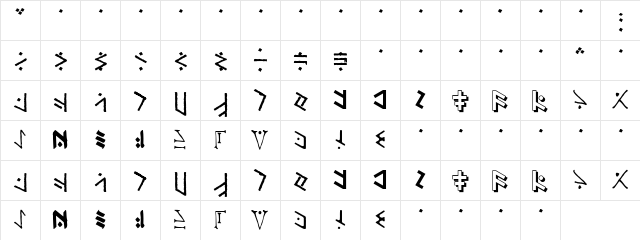
Temphis Sampler Regular Free Font
Temphis Sampler Regular
Designer: S. John Ross
Design Context for Temphis Sampler
Temphis Sampler is a composed and adaptable typeface that performs quietly and consistently across a wide range of design contexts.